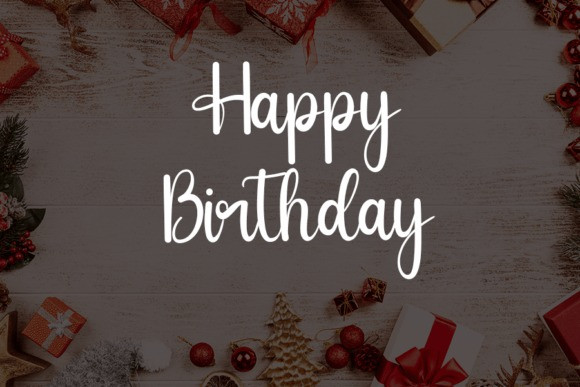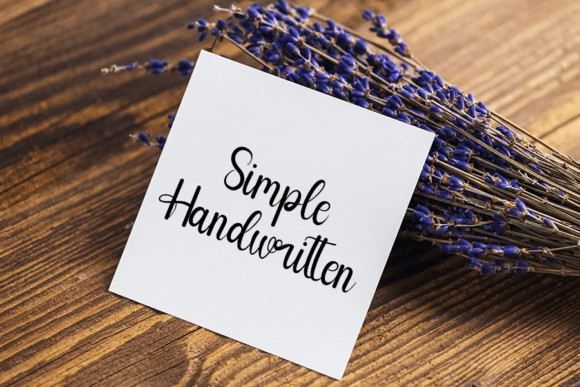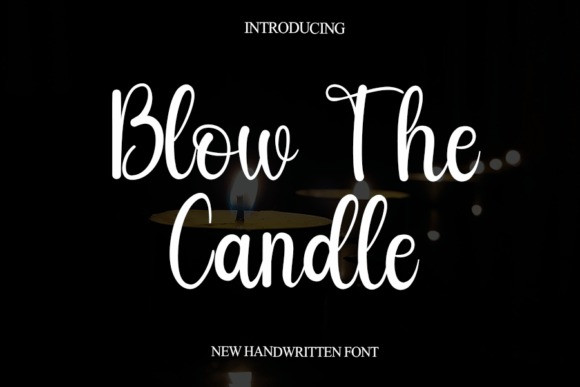
Blow The Candle Font
Blow The Candle is a fun handwritten font carefully created with a touch of elegance. Whether you’re looking for fonts for Instagram or calligraphy scripts for DIY projects, this font will turn any creative idea into a true piece of art!